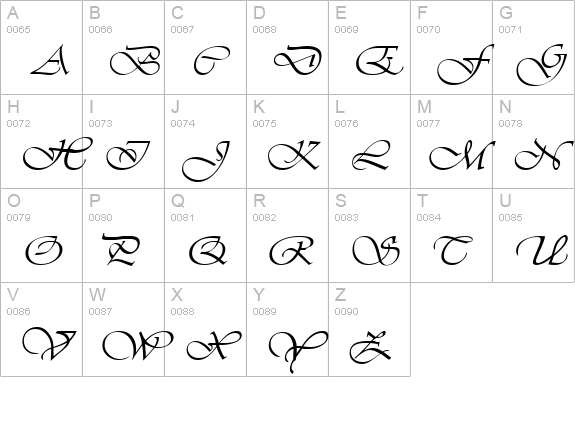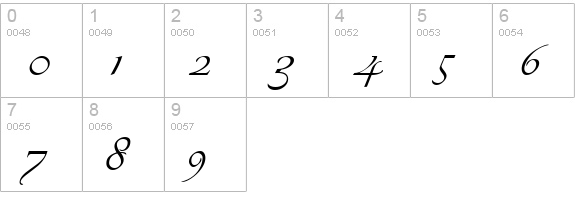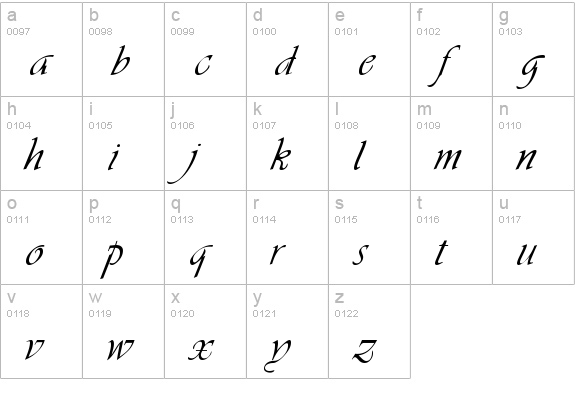
Hanford Script Font Details
Hanford Script is a free for personal use font in the Script > Calligraphy category. It has been downloaded 249 times and is available for Windows, Mac and Linux.
Hanford Script is a stunning and elegant font that exudes a sense of sophistication and charm. With its exquisite calligraphic strokes and graceful curves, this font adds a touch of elegance to any project. Whether you're designing wedding invitations, creating a logo for a high-end brand, or simply looking to add a touch of class to your typography, Hanford Script is the perfect choice. What sets Hanford Script apart is not just its beauty, but also its versatility. This font can be used for a wide range of purposes, from formal events to casual designs. Its flowing and connected letters make it ideal for creating seamless and visually appealing text. And the best part? Hanford Script is free! That's right, you can freely download this font at FontsMarket.com. This means that you can enjoy the beauty and quality of Hanford Script without any cost, making it an ideal option for both personal and commercial projects. Whether you're a professional designer or someone who appreciates the art of typography, Hanford Script is a must-have font in your collection. Its timeless appeal and effortless beauty are sure to captivate anyone who sees it. So go ahead, download Hanford Script today and elevate your designs to new heights of elegance and sophistication.